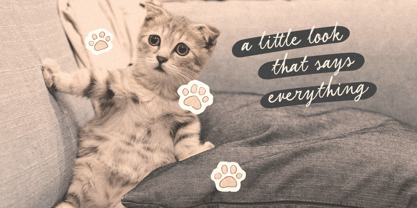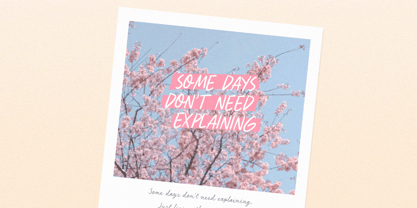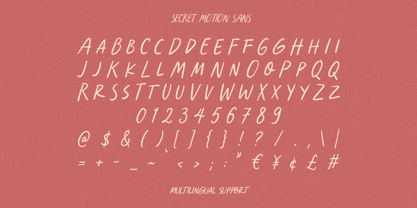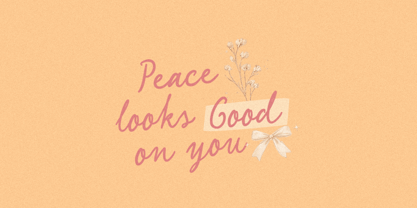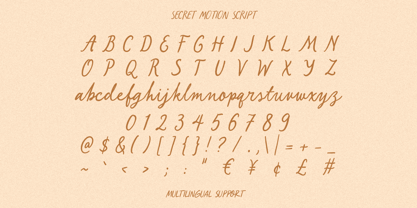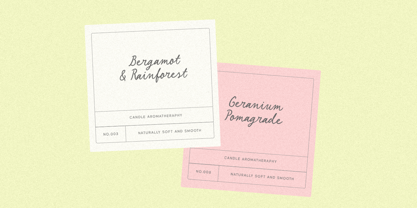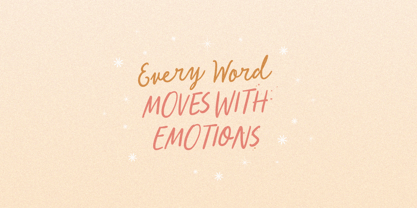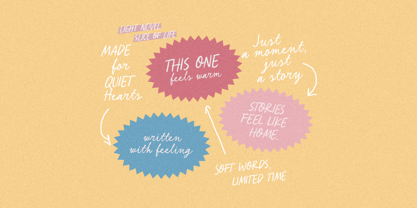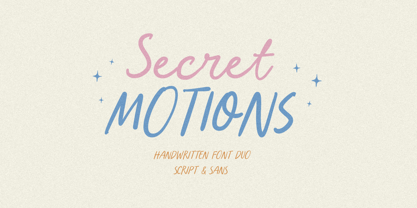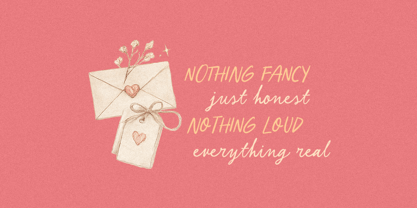
Secret Motions
The Secret Motions Font Family was designed by Aryo Pamungkas and published by Littlehand. Secret Motions contains 2 styles and family package options. More about this family
Secret motions mixes a smooth handwritten script with a simple friendly sans that feels light and cheerful. The script adds personality and movement, while the sans keeps everything clear and balanced. Playful, sweet, and slightly retro, it’s perfect for quotes, posters, and social media visuals. Features : Uppercase & lowercase Numbers and punctuation Alternates & Ligatures Multilingual Support PUA encoded